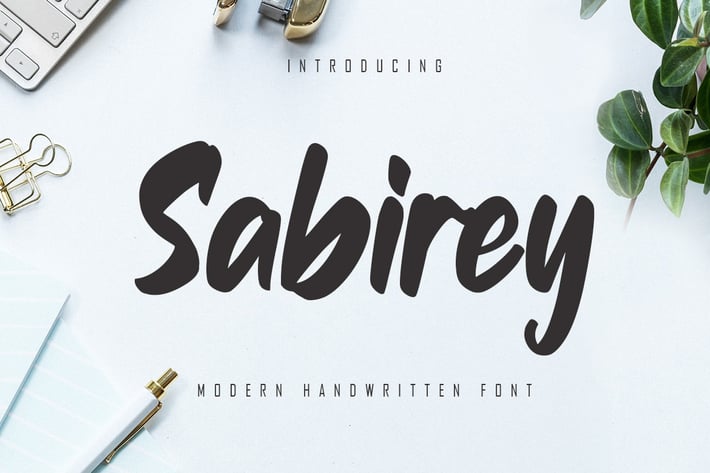
Sabirey - Handwritten Font
Sabirey is Modern handwritten font. It’s perfect for advertising, book covers, branding, wedding invitations and much more!